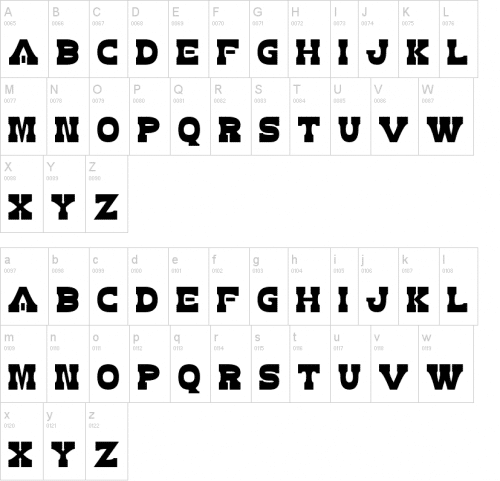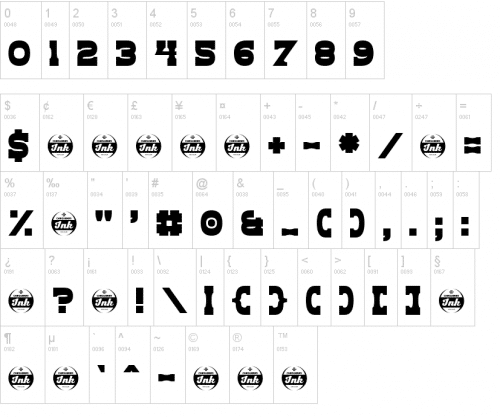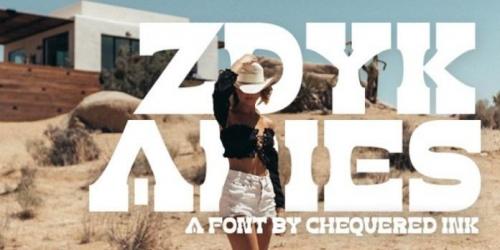
Zdyk Aries Font is a display slab serif font that we recommend using in the following types of work; magazines (titles and layouts), logos and branding, invitations, quotes, blog headers, posters, advertising, and body copy.
This typeface comes with uppercase, lowercase, punctuation, symbols and numbers, ligatures and multilingual options.
With its modern versatile stance, this font can meet your needs in all modern or classic creative projects.